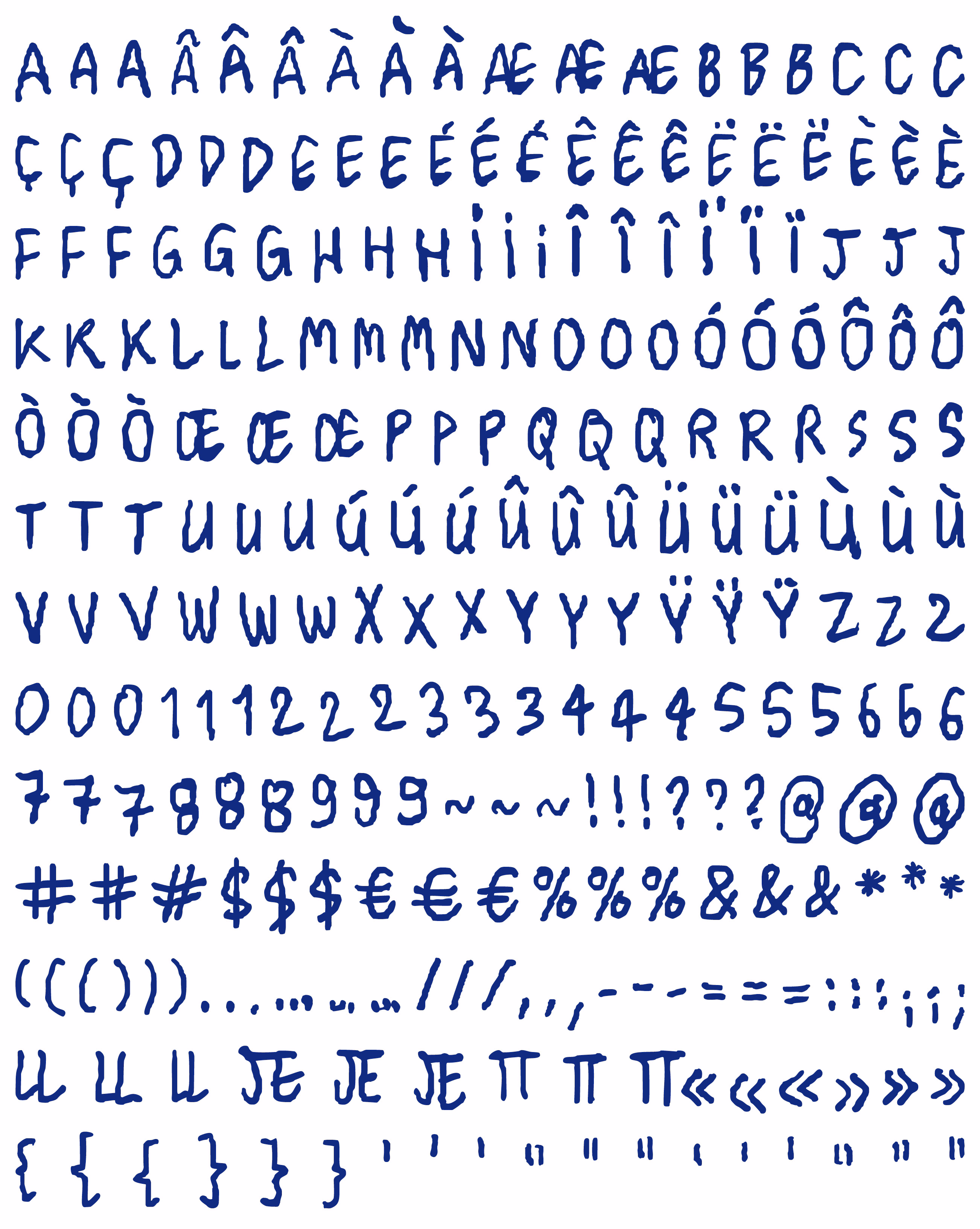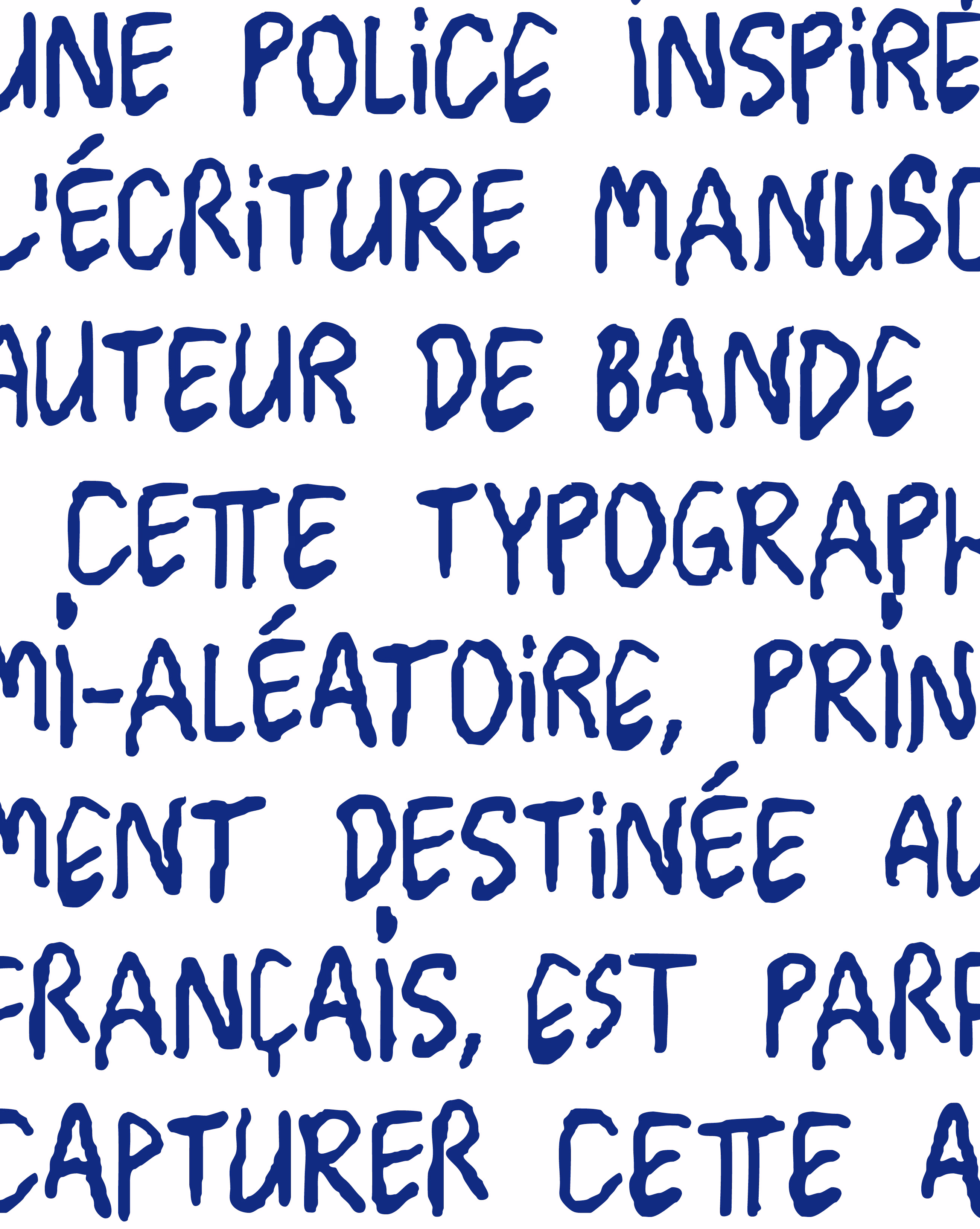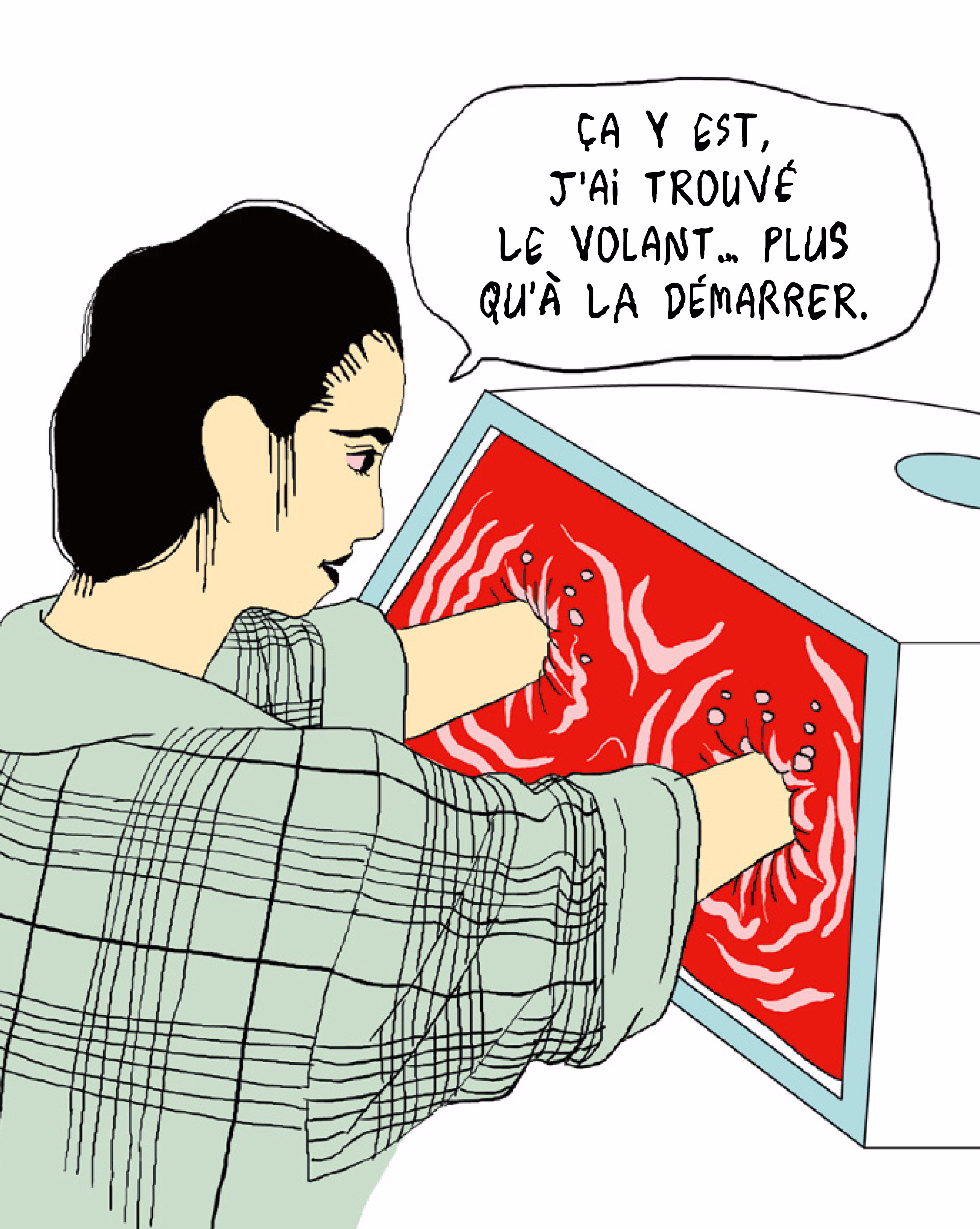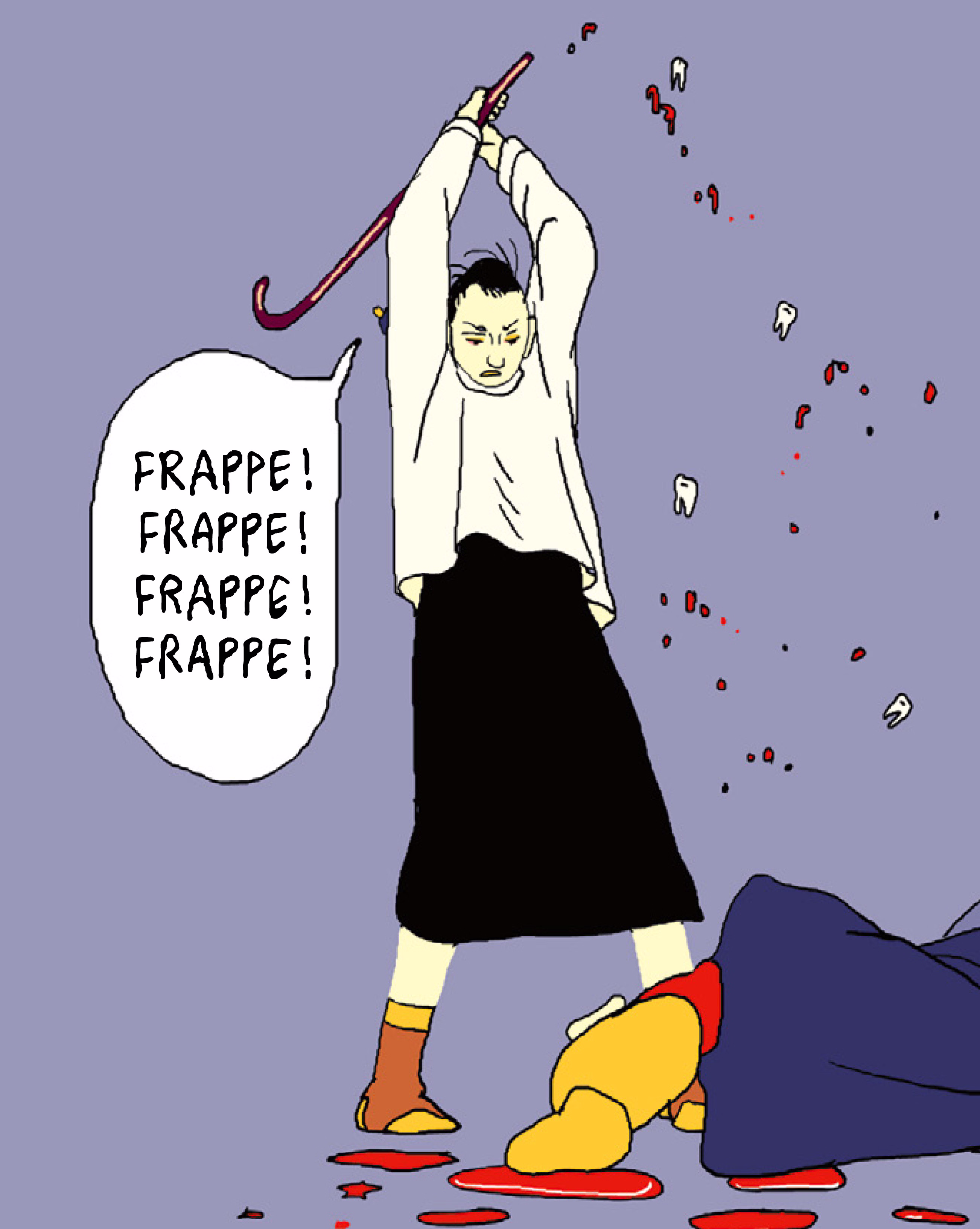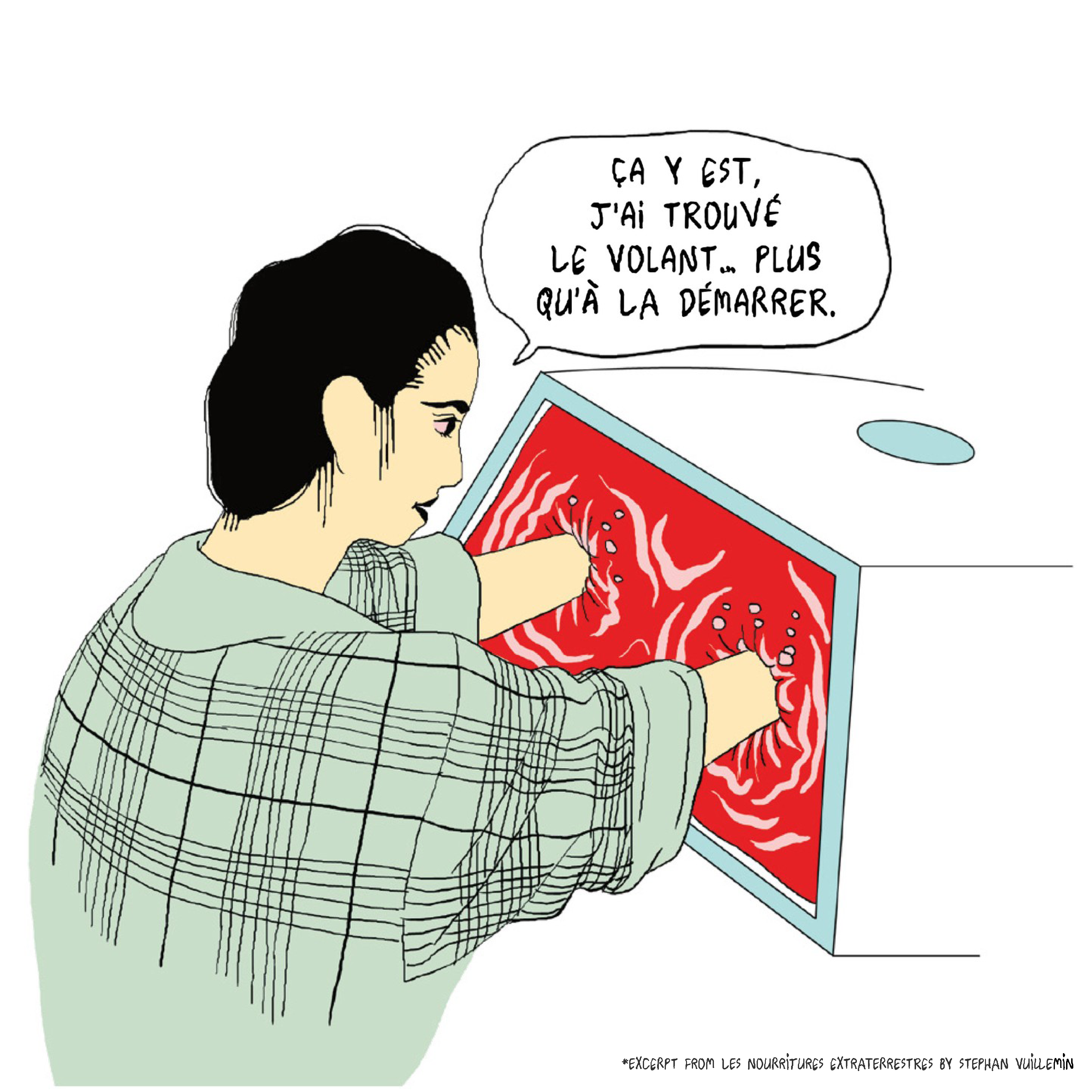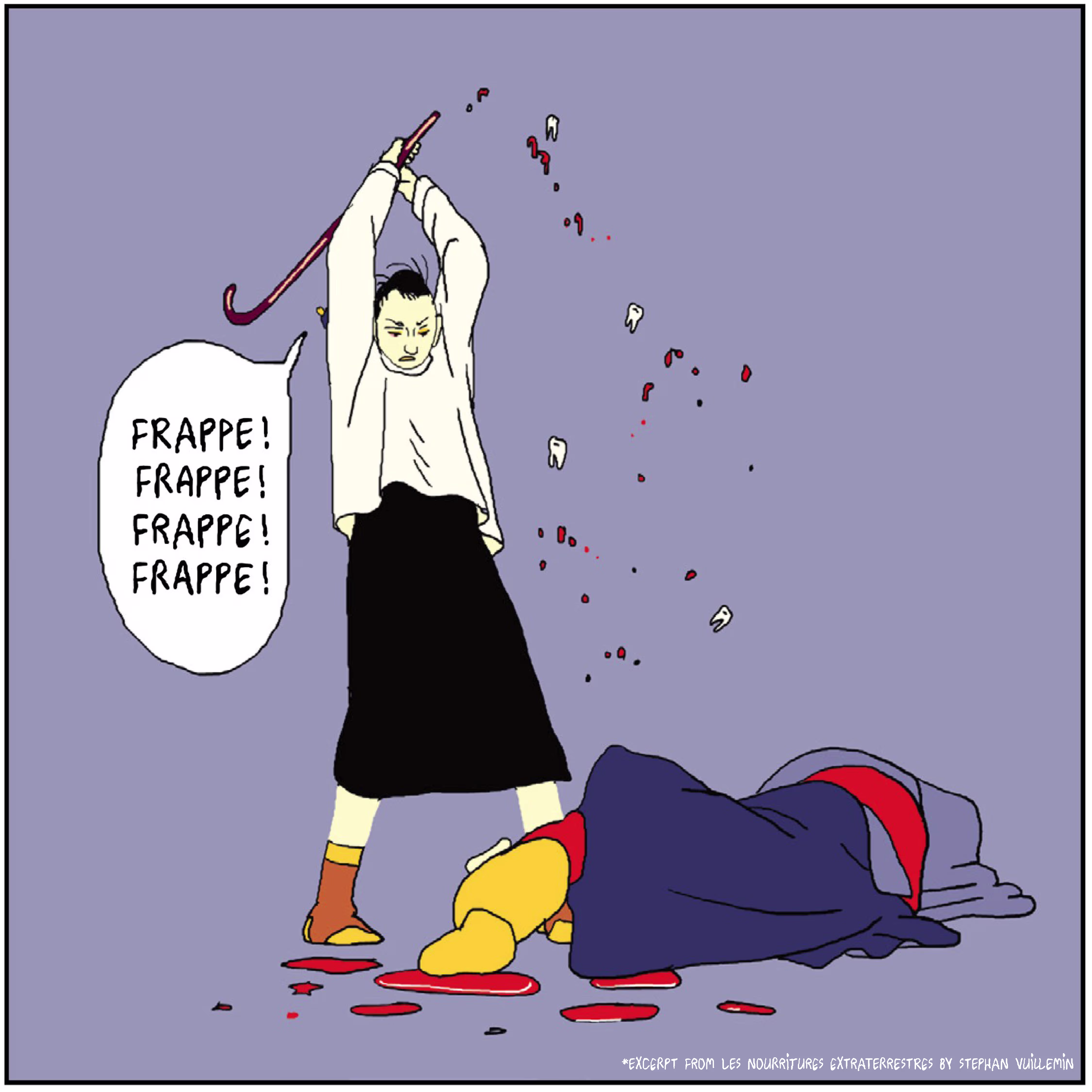
Stephen Sans
Stephen Sans is a custom typeface created for use in Stephen Vuillemin's comic book Les nourritures extraterrestres, published by Denoël, a renowned French publishing house. Based directly on Vuillemin's own handwriting, the typeface was designed to give his work an authentic, personal feel. To capture the natural spontaneity of handwritten text, I incorporated a pseudo-random method where three variants of each letter change automatically, giving the digital typeface an organic, hand-drawn quality that preserves the unique characteristics of Vuillemin's original writing.